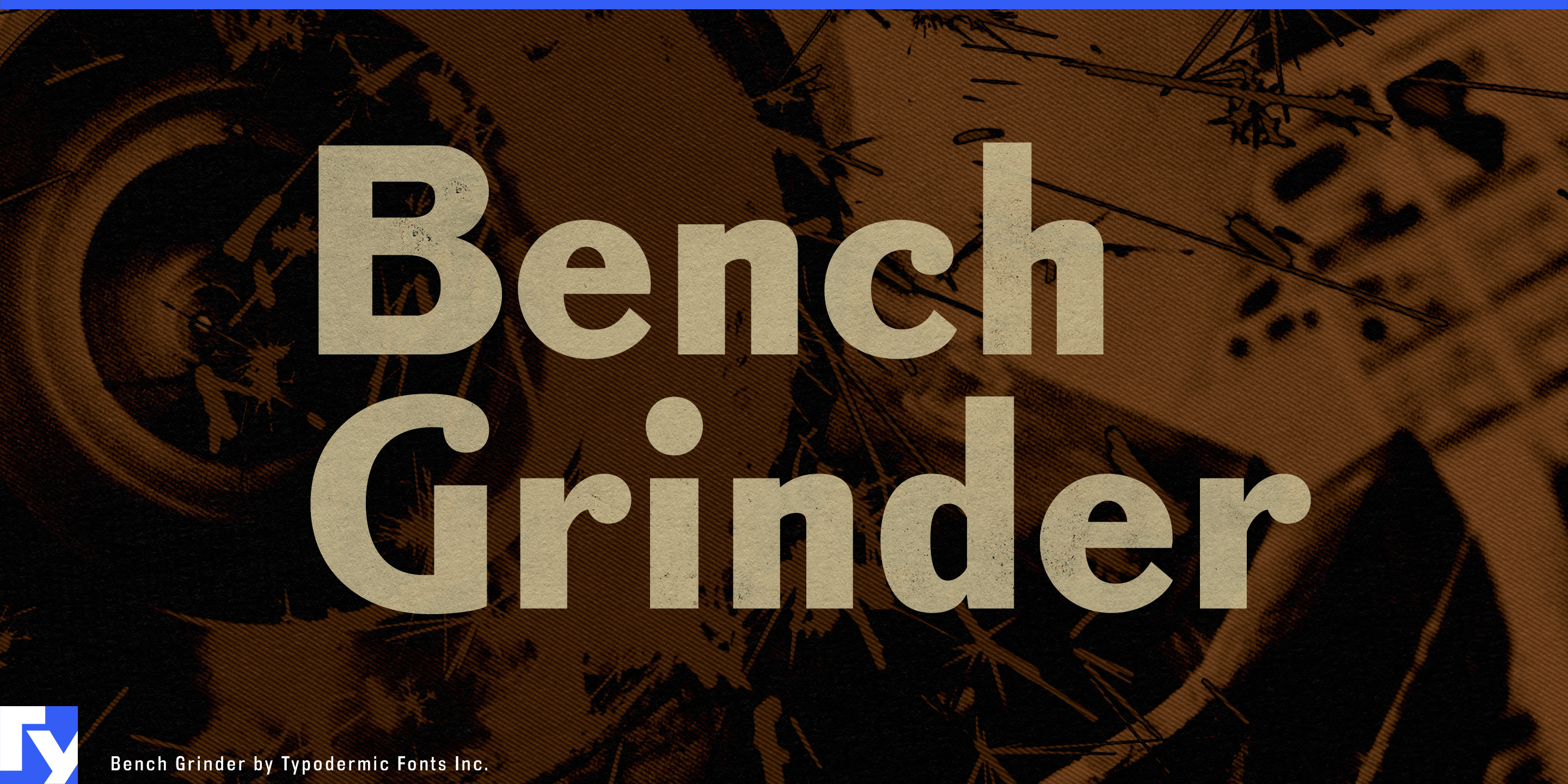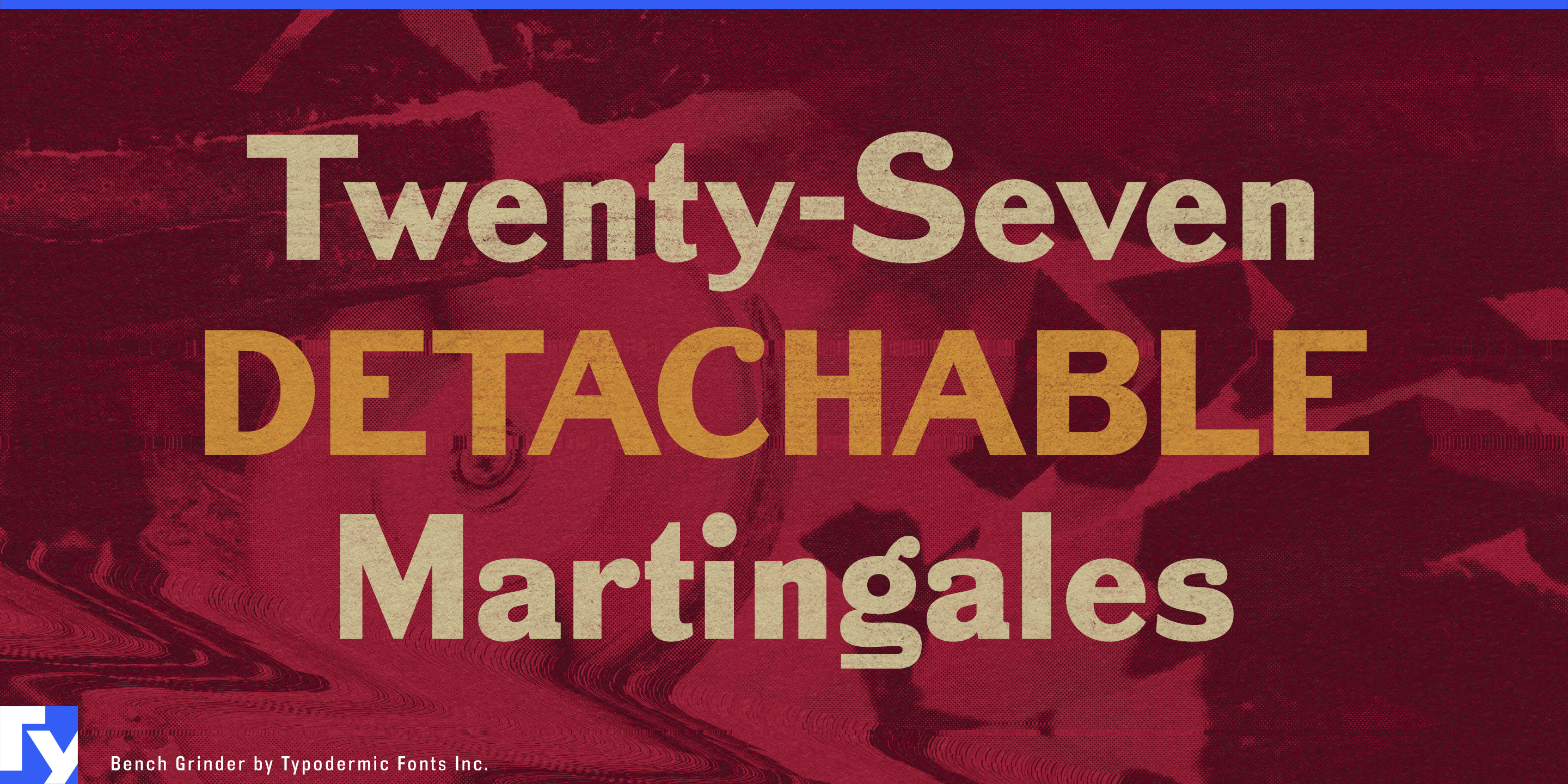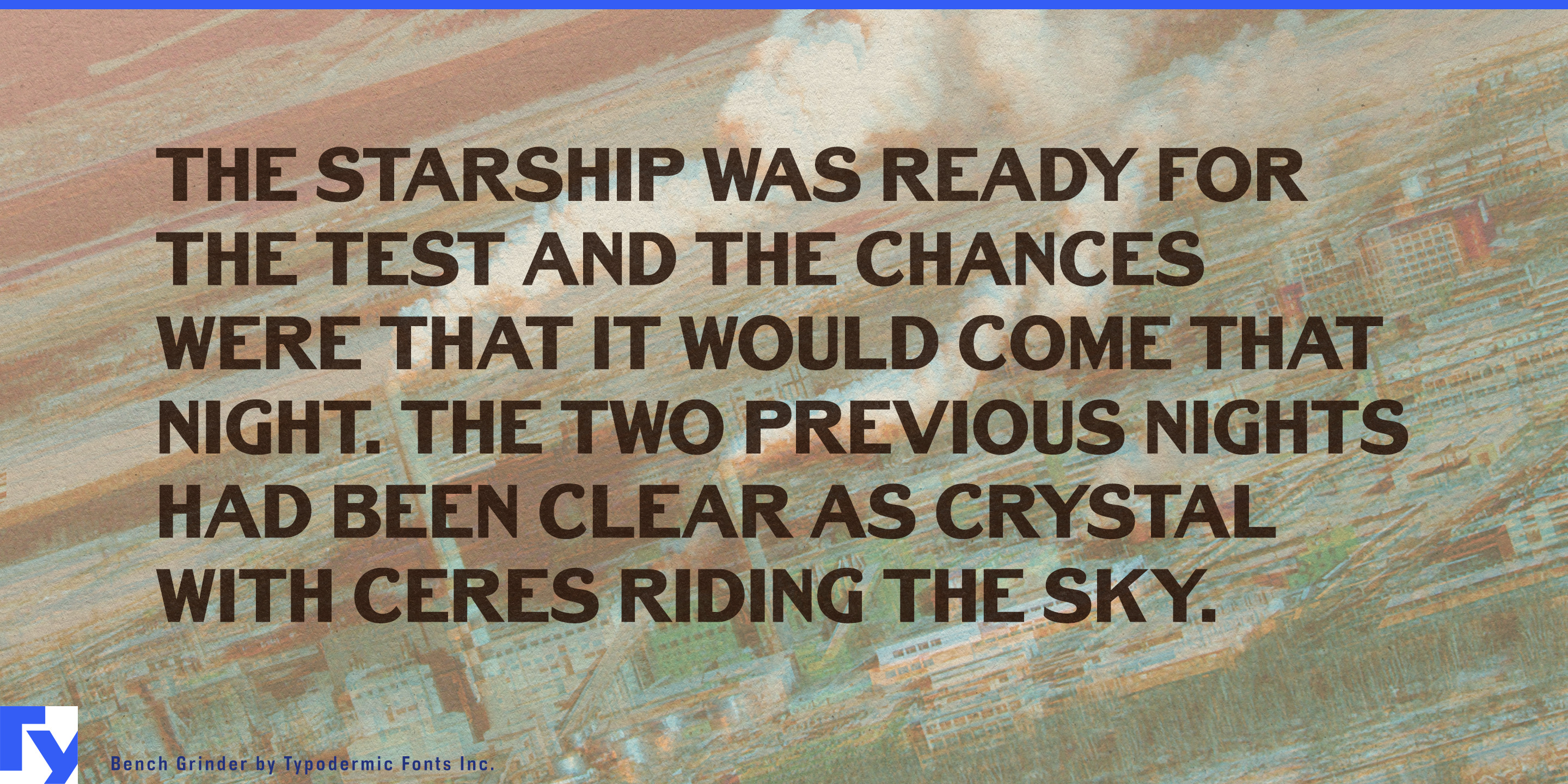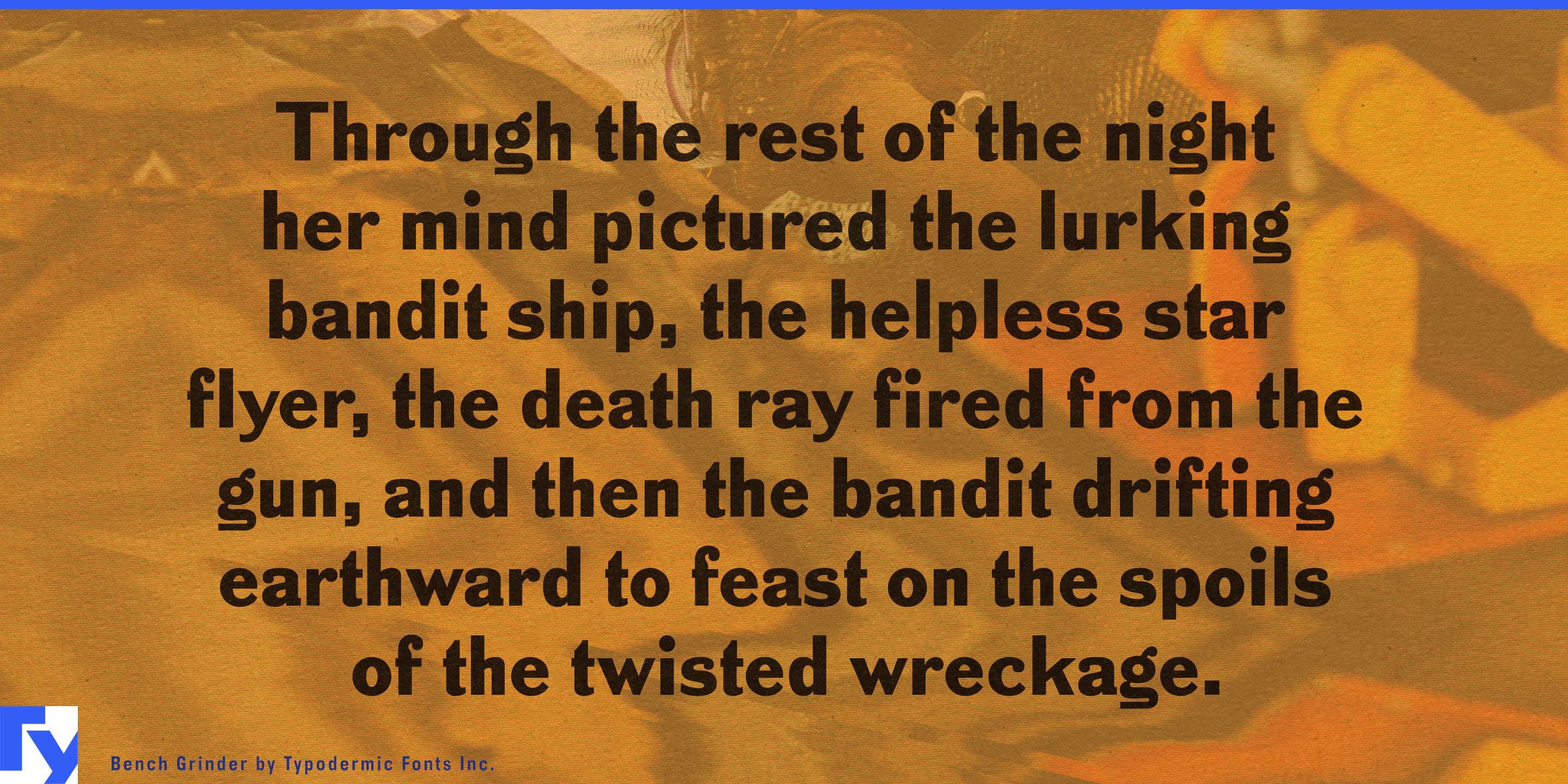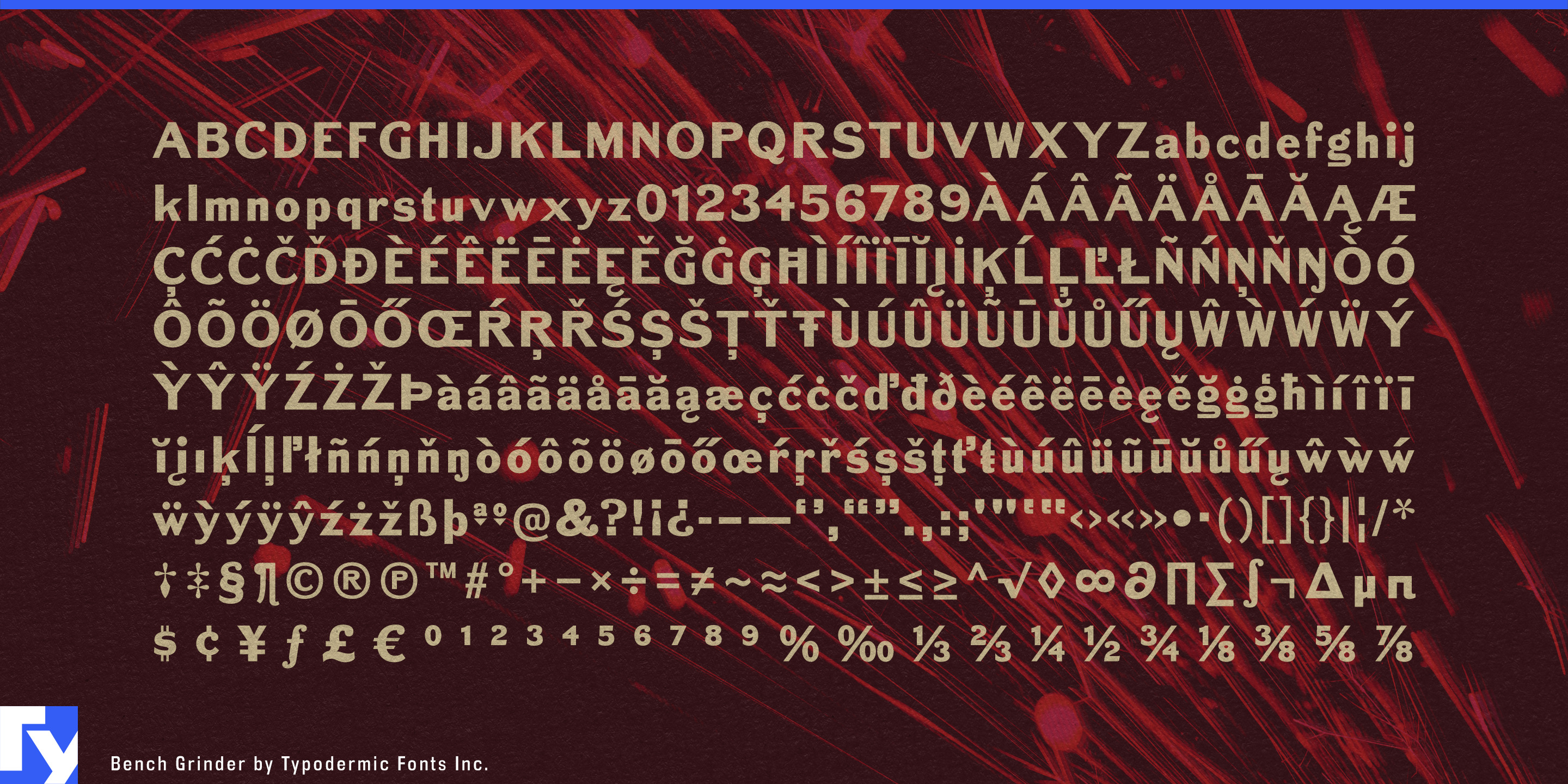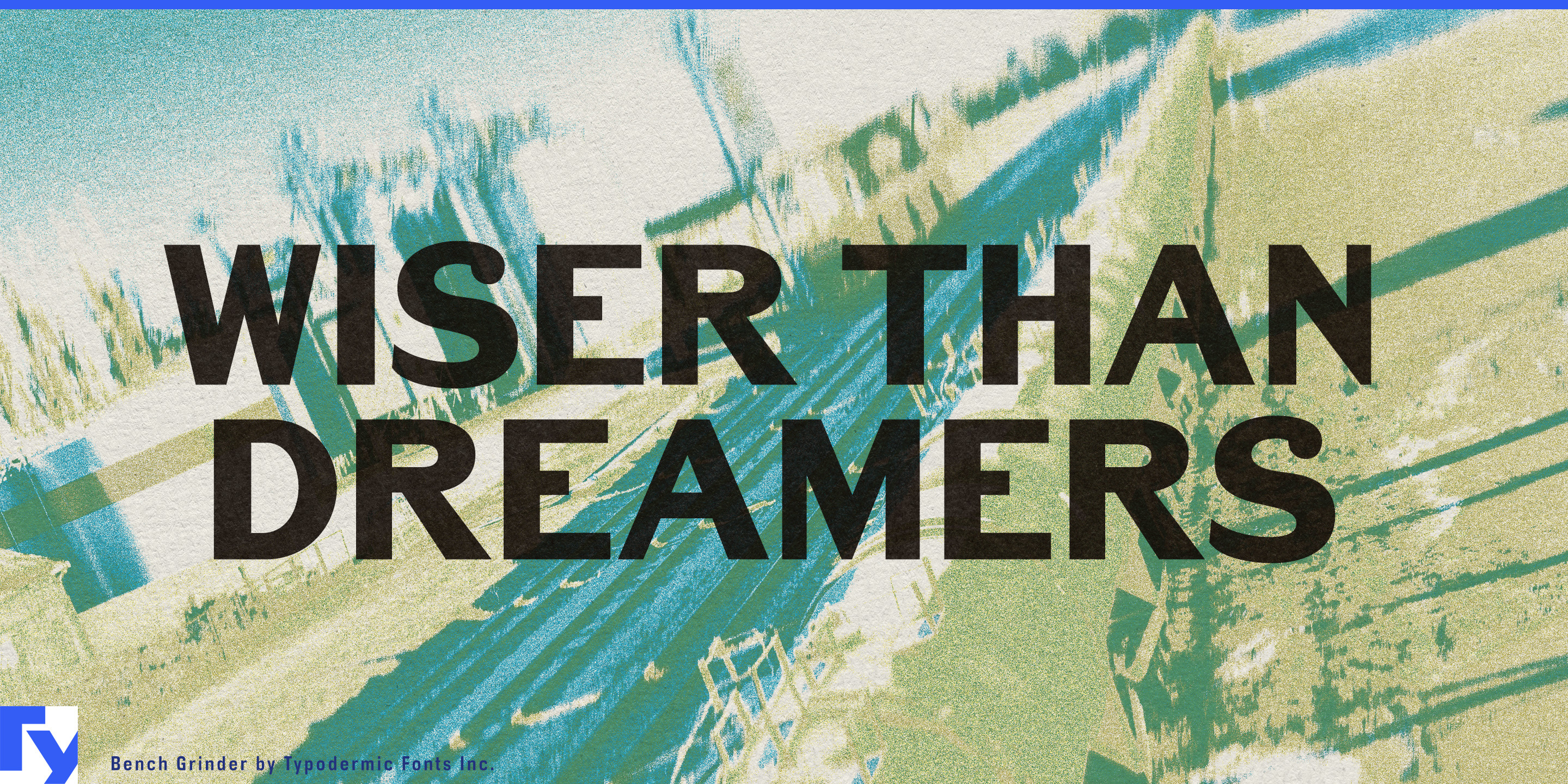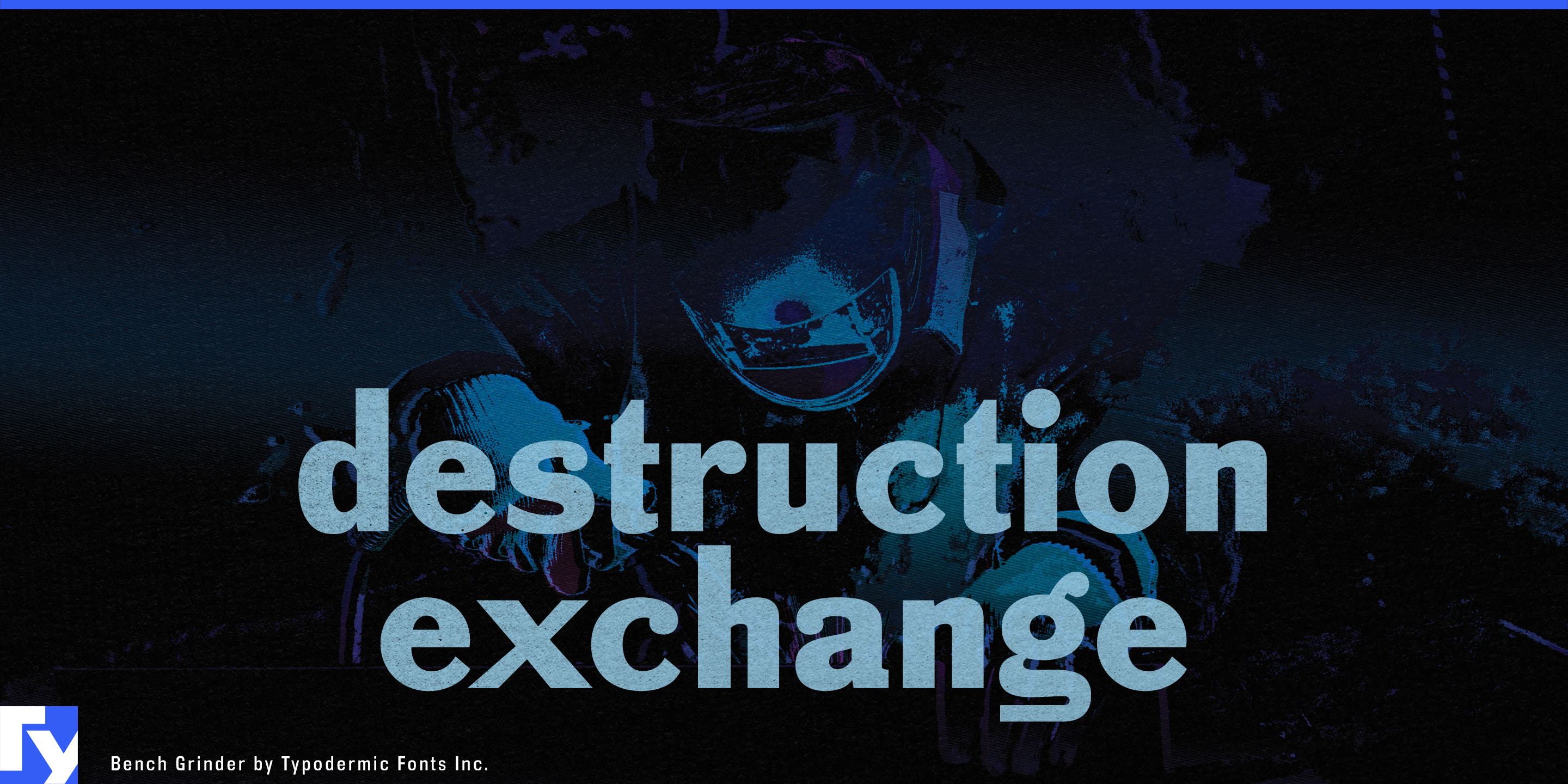
Bench Grinder
Old-fashioned typography is easy to overdo. Add scratches, faded ink, ornamental borders, or exaggerated period details and the result can start looking like a costume. Sometimes the useful ingredient is simpler: letters that seem to come from another set of rules.
Bench Grinder has that quality. Its forms are clean, but clunky, blunt, and slightly peculiar, with proportions and details that feel inherited from an earlier strain of commercial sans serif. Nothing is artificially weathered. The age comes from the shapes themselves, giving designers a way to suggest obsolete packaging, regional manufacturing, industrial catalogs, or municipal printing without adding fake damage.
That makes Bench Grinder especially useful for heritage food products that should feel established without becoming precious. Canned beans, pickles, mustard, preserves, smoked fish, flour, oats, baking ingredients, hot sauce, and other pantry staples can use it for product names, jar labels, can wraps, case-pack graphics, and shipping cartons. It can make a new package feel as though the company has been making the same thing for generations while leaving color, illustration, and supporting typography free to keep the overall design contemporary.
Agriculture provides another natural setting. Seed companies, greenhouse equipment, irrigation products, orchard supplies, soil products, and farm machinery parts can use Bench Grinder for seed bags, product-family names, dealer graphics, equipment decals, catalogs, and trade-show displays. Its old-fashioned character suggests agricultural commerce without slipping into cowboy lettering or decorative farmhouse nostalgia.
The same slightly obsolete quality suits businesses that keep old machinery working. Classic motorcycle parts, tractor restoration, machine-tool dealers, reproduction hardware, architectural salvage, industrial lighting, workshop equipment, and heritage building products can use Bench Grinder for model names, parts catalogs, restoration-kit packaging, workshop signs, and shipping graphics.
For games, film, and entertainment, Bench Grinder becomes useful when the past is supposed to feel a little wrong. Folk-horror villages, rural mysteries, abandoned mining towns, historical detective stories, obsolete institutions, and alternate industrial histories can use it for titles, chapter headings, town signs, factory notices, newspaper mastheads, evidence labels, and environmental graphics. Its unease comes from malformed familiarity rather than theatrical horror effects.
Museums and publishers can draw on the same character for industrial-history exhibitions, railway displays, agricultural museums, mining heritage, abandoned infrastructure, old machinery, labor history, and peculiar regional history.
Bench Grinder is old-fashioned without being quaint and strange without needing visible damage. For heritage foods, agricultural products, machinery restoration, regional manufacturing, historical exhibitions, and unsettling fictional pasts, the clumsiness is the useful part.